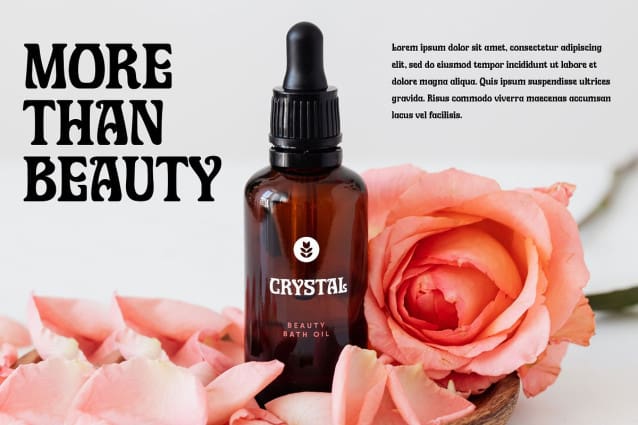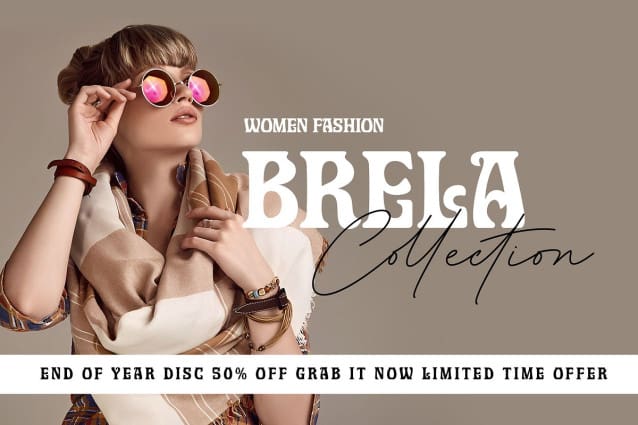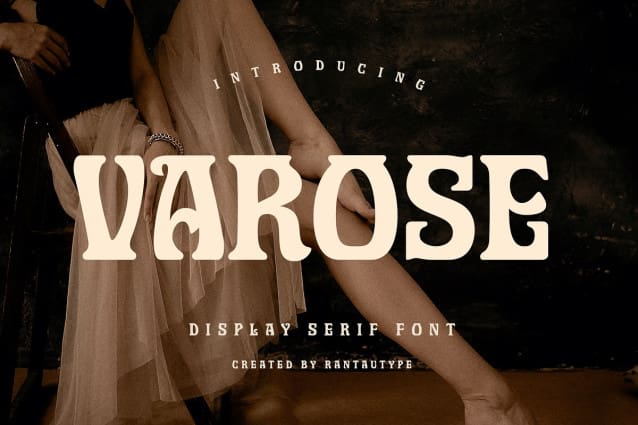
Varose Display Font
Varose Display Font is a unique display serif font that embraces classic and nineteen vibes but look elegant. Its delicate curves and refined details create a sense of sophistication and femininity.
Varose Display Font brings a touch of charm and sophistication to branding, editorial designs, and more. We keep this font looks fashionable, elegant, luxury, premium, modern, catchy and easy to use. With its versatility and contemporary appeal,
Varose Display Font is a beautiful choice for any creative endeavor, chic, lifestyle design such as logos, title, watermark on photography, cover, branding, display and magazine, wedding event, quotes, album cover, business card, corporate, business project and many other design project. Varose to elevate you branding!!